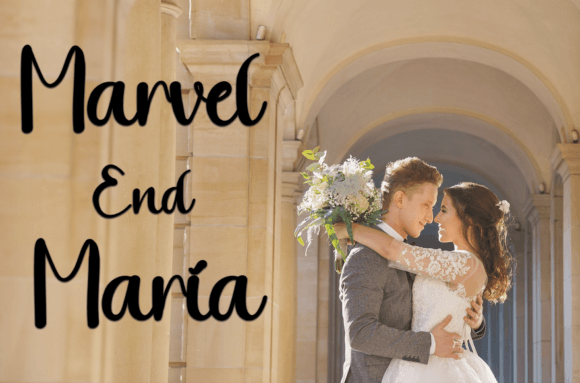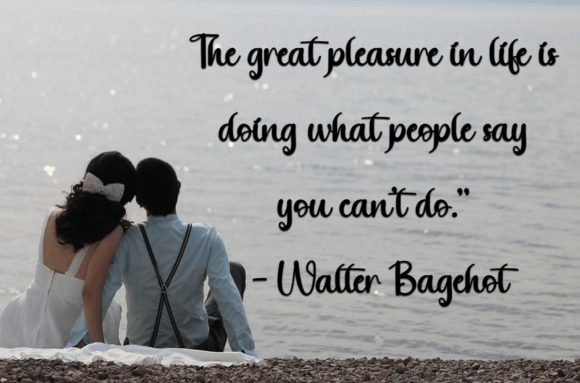
About Anime Font
Anime Font is a charming and elegant handwritten typeface designed to add a personal and sophisticated touch to your creative projects. Its smooth and graceful letterforms make it perfect for wedding invitations, thank-you cards, quotes, greeting cards, logos, business cards, and any design requiring a warm, handwritten feel.
Charming and Elegant Handwritten Design
Anime features flowing, well-balanced strokes that combine readability with artistic elegance. This font’s refined style suits both formal and casual designs, adding warmth and uniqueness to your work.
Ideal Uses for Anime Font
This versatile font is perfect for:
Wedding invitations and save-the-date cards
Thank-you and greeting cards
Inspirational quotes and messages
Logos and brand identities
Business cards and stationery
Anime brings charm and elegance to a wide range of creative projects.
Why Choose Anime Font?
Designers appreciate Anime for its:
Charming and elegant handwritten style
Clear and smooth letterforms
Versatility across print and digital media
These features make Anime a practical and stylish font choice.
Add Warmth and Personality to Your Designs
Typography shapes your project’s mood. Anime adds warmth and charm, helping your designs connect emotionally with your audience. Whether for weddings, branding, or personal projects, this font enhances your creative vision.
In summary, Anime Font is a charming and elegant handwritten script perfect for designers seeking a warm and stylish font. Add Anime to your font collection to create memorable and beautiful designs.